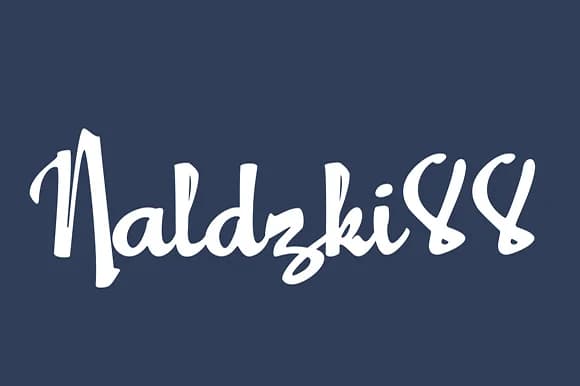
About Naldzki88 Font
Naldzki88 by Rodi.de.Artist.com is a bold hand-lettered script where thick, sculptural letterforms create immediate visual impact while maintaining excellent legibility. The substantial stroke weight of each character makes this typeface exceptionally well-suited for designs that need to command attention, whether applied to wedding invitation suites, custom product labels for artisanal goods, eye-catching storefront signage, or specialty packaging for boutique brands. The strong letterforms read clearly across different scales, working effectively for headline typography in print publications, social media graphics, or anywhere your message needs to resonate with confidence and personality. The brushed aesthetic of the script brings warmth and character to branding work, making it particularly suited for handcrafted goods labels, artisanal product packaging, lifestyle photography overlays, and personalized event materials. The thick weight ensures your text maintains visibility and distinction even when layered over background imagery or used in competitive design spaces. There's no compromise between style and substance here, this font delivers both. Naldzki88 stands out precisely because it proves that readability and visual presence don't have to compete for attention. Get this typeface on Creative Fabrica and discover how a bold, legible script can bring distinctive character to your design projects while keeping every word clear and impactful.
Naldzki88 Font is a script font that shines as a display or heading face. Pair it with a clean sans-serif or serif font for body text β the contrast creates a clear hierarchy while the two styles stay balanced and easy to read.